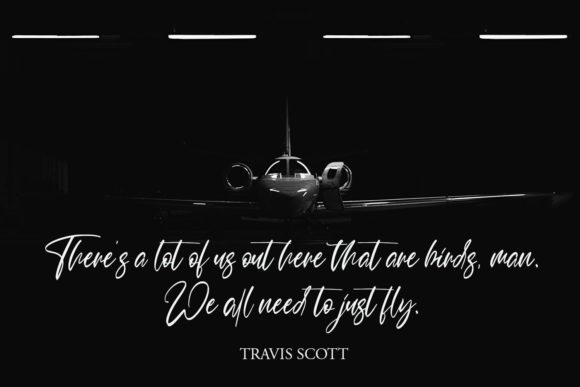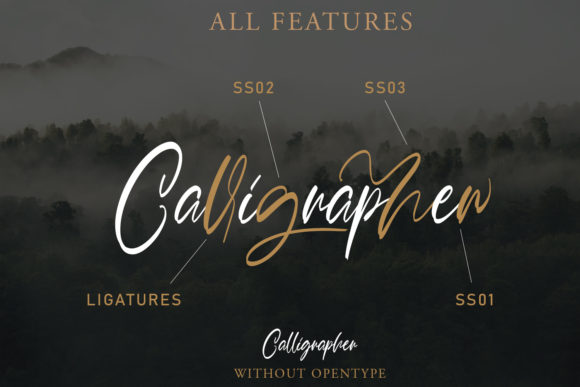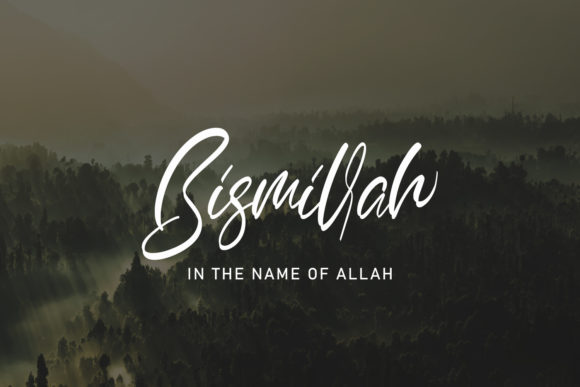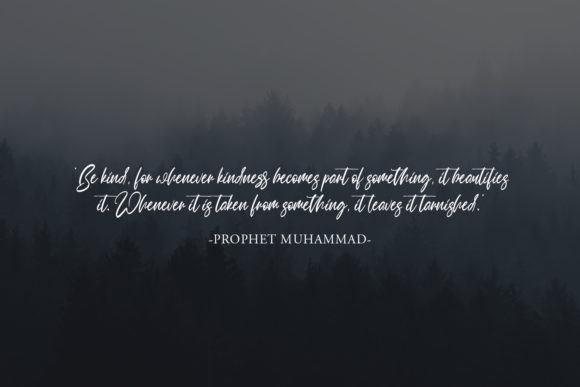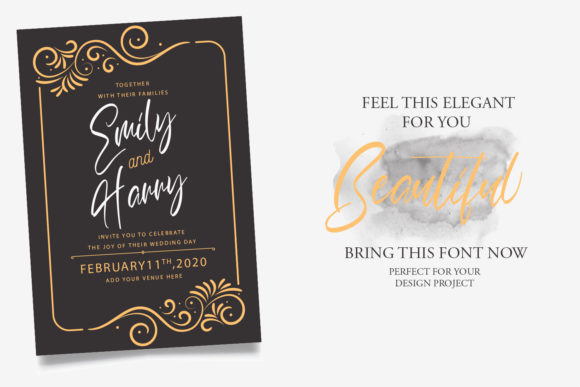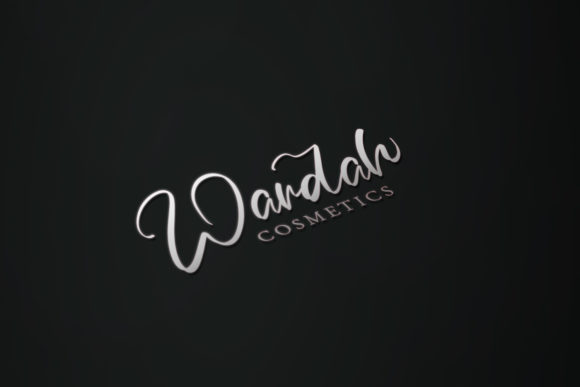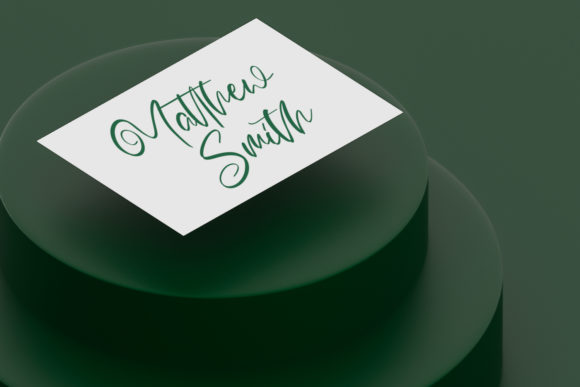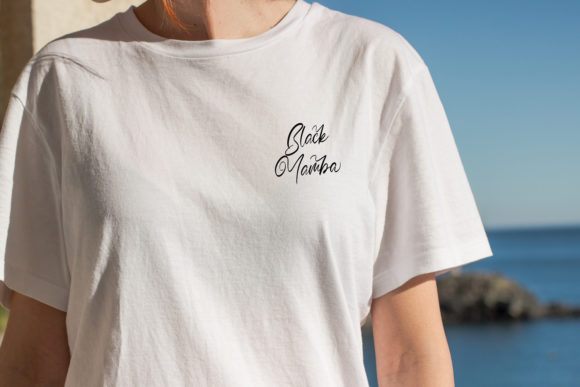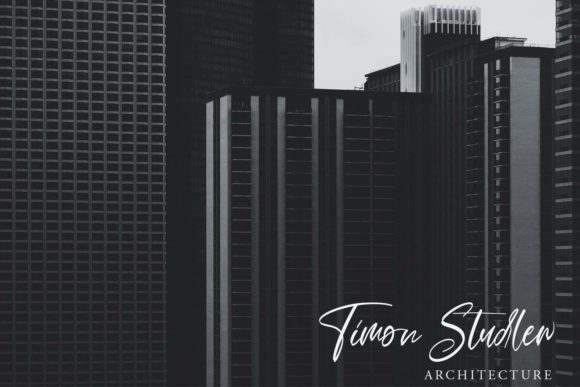
Calligrapher Font
About Calligrapher Font
Calligrapher is a magical handwritten font carefully created with a touch of elegance. It features an incredibly classic style, while still keeping a friendly feel. Calligrapher is the perfect font for making original and outstanding designs.